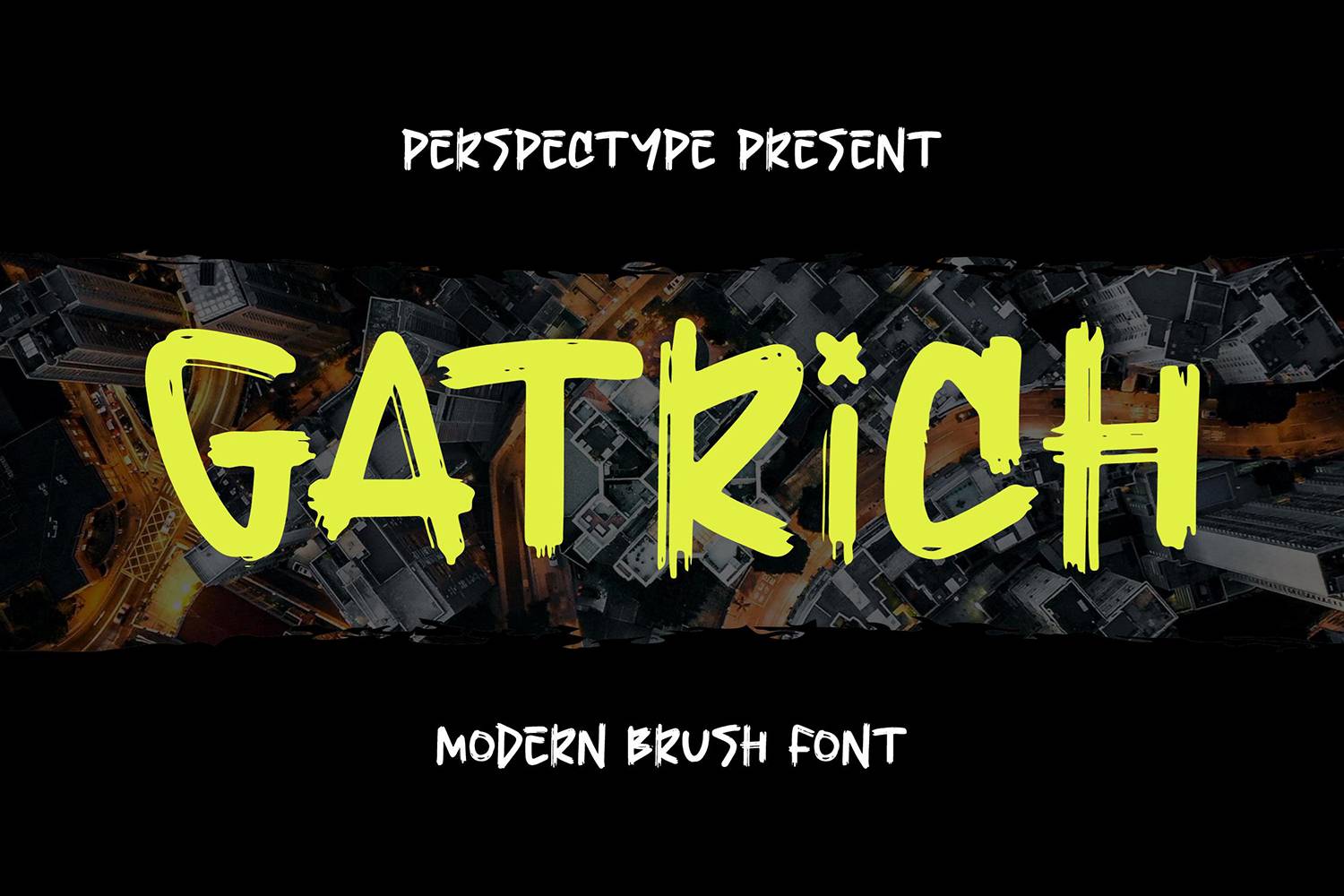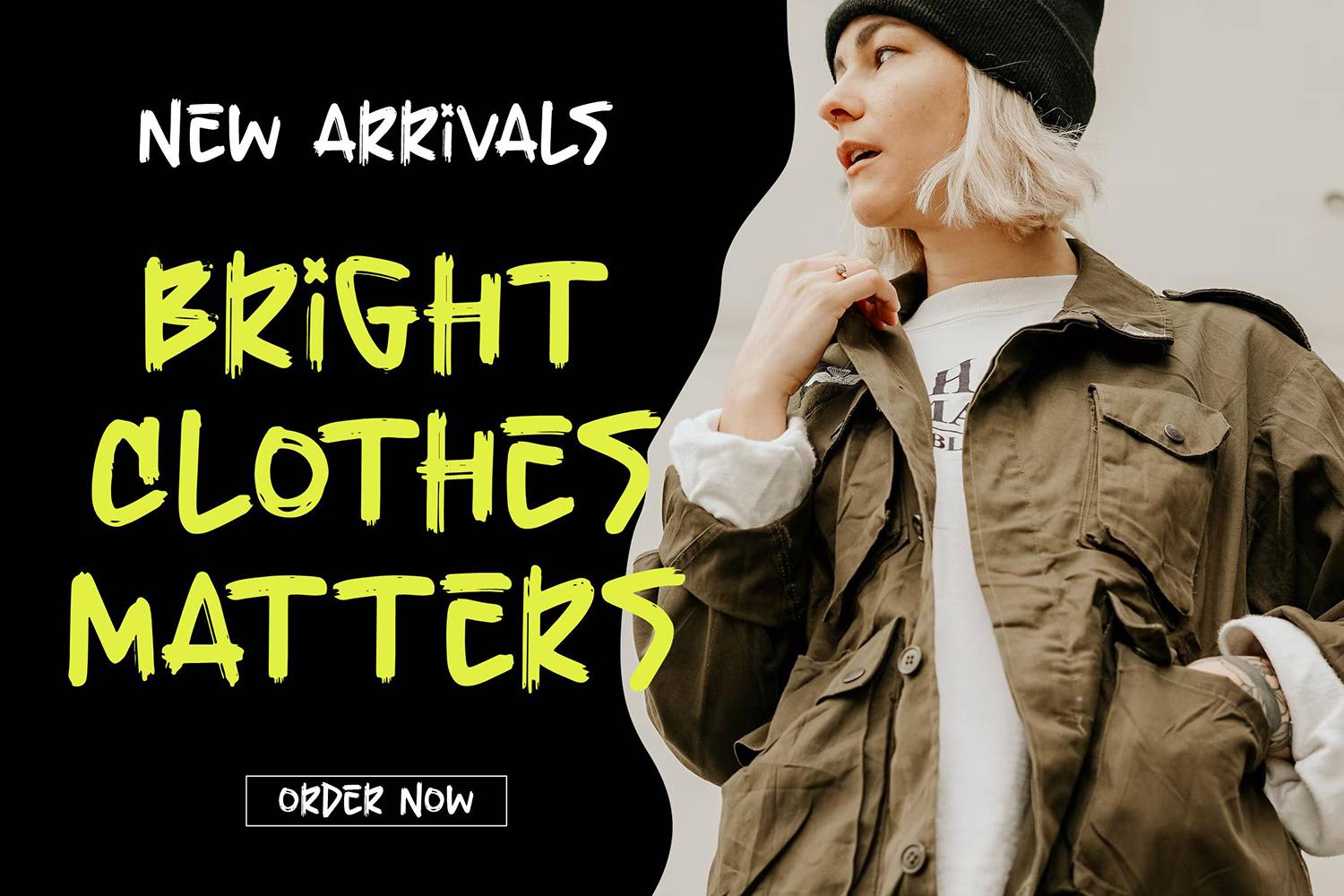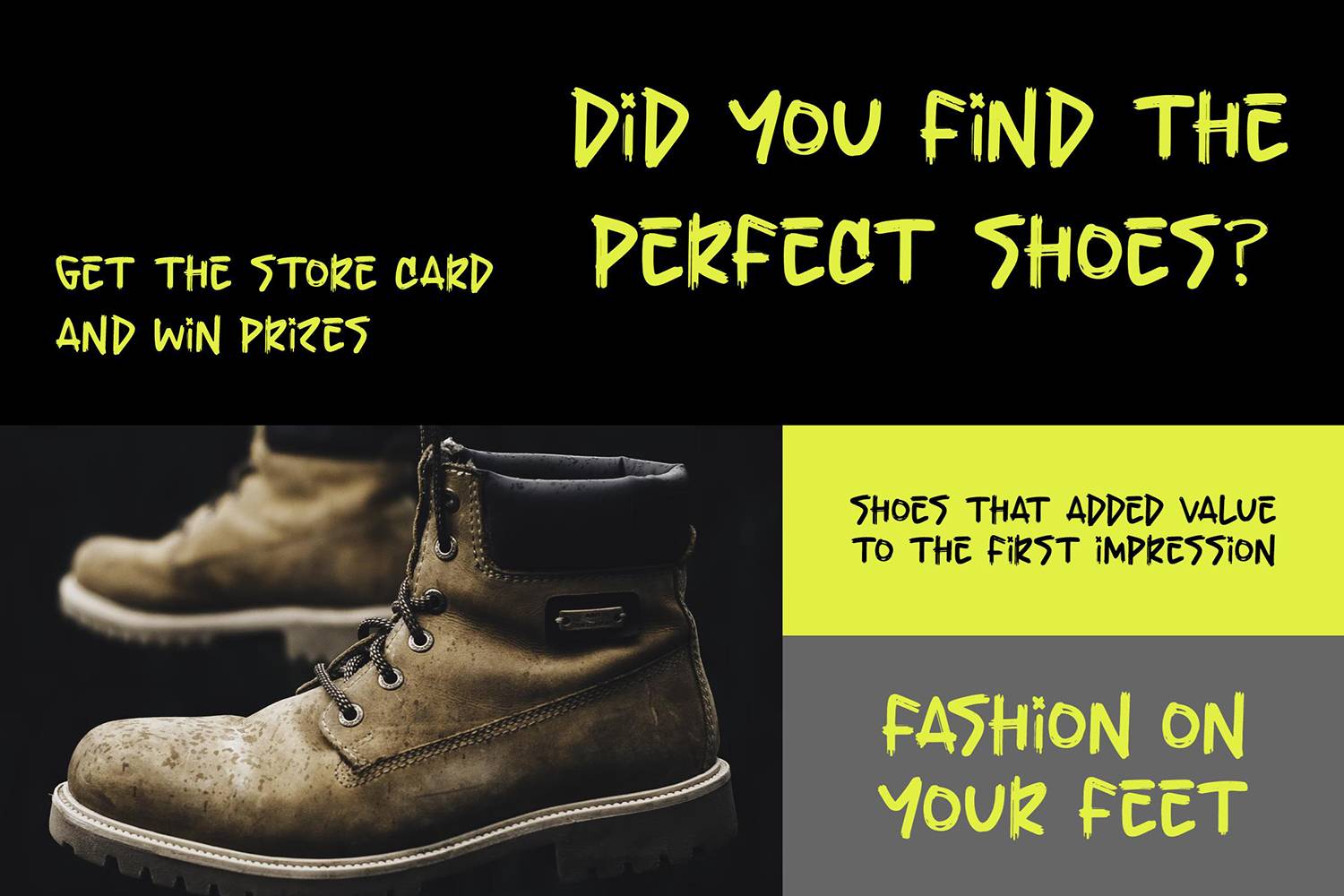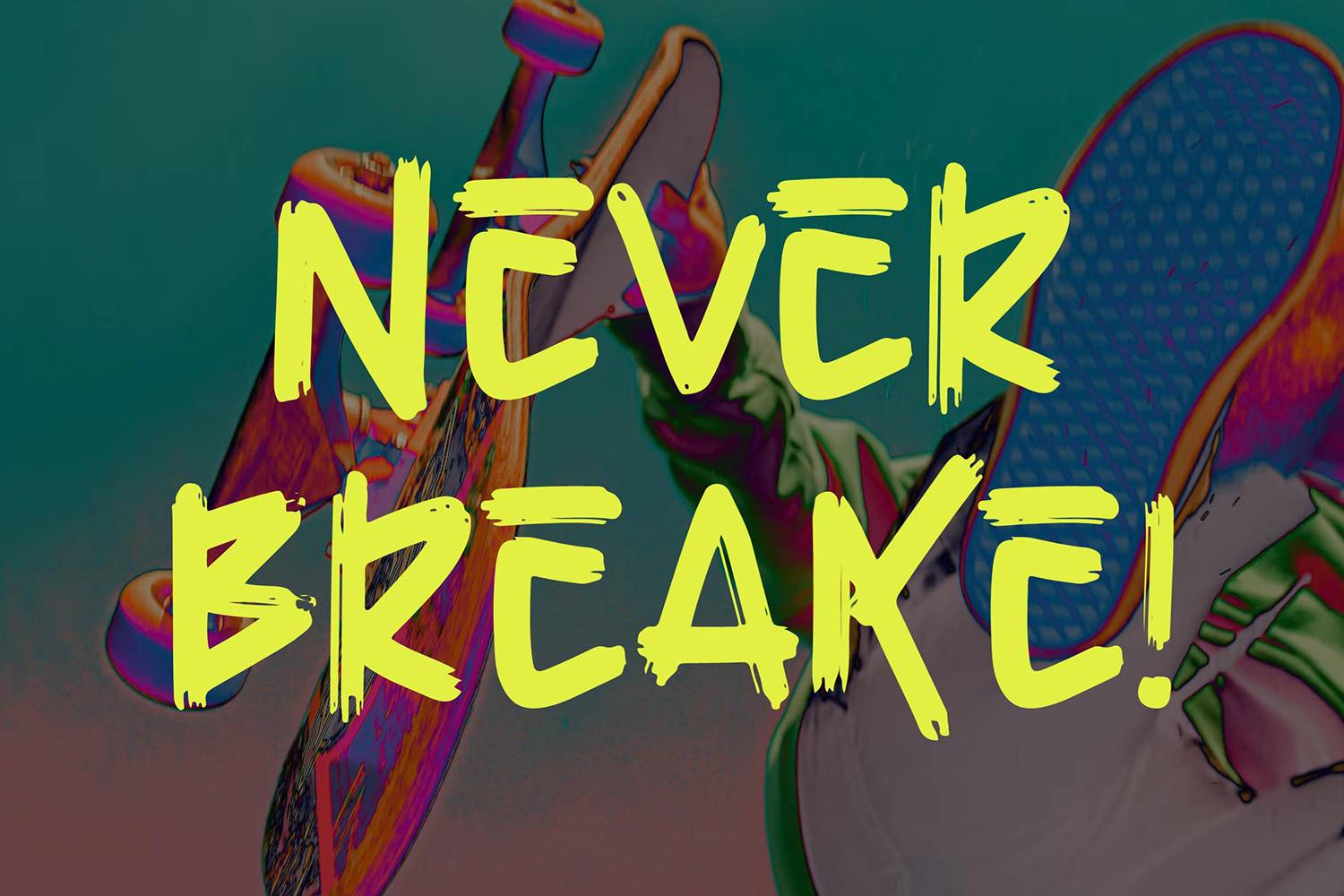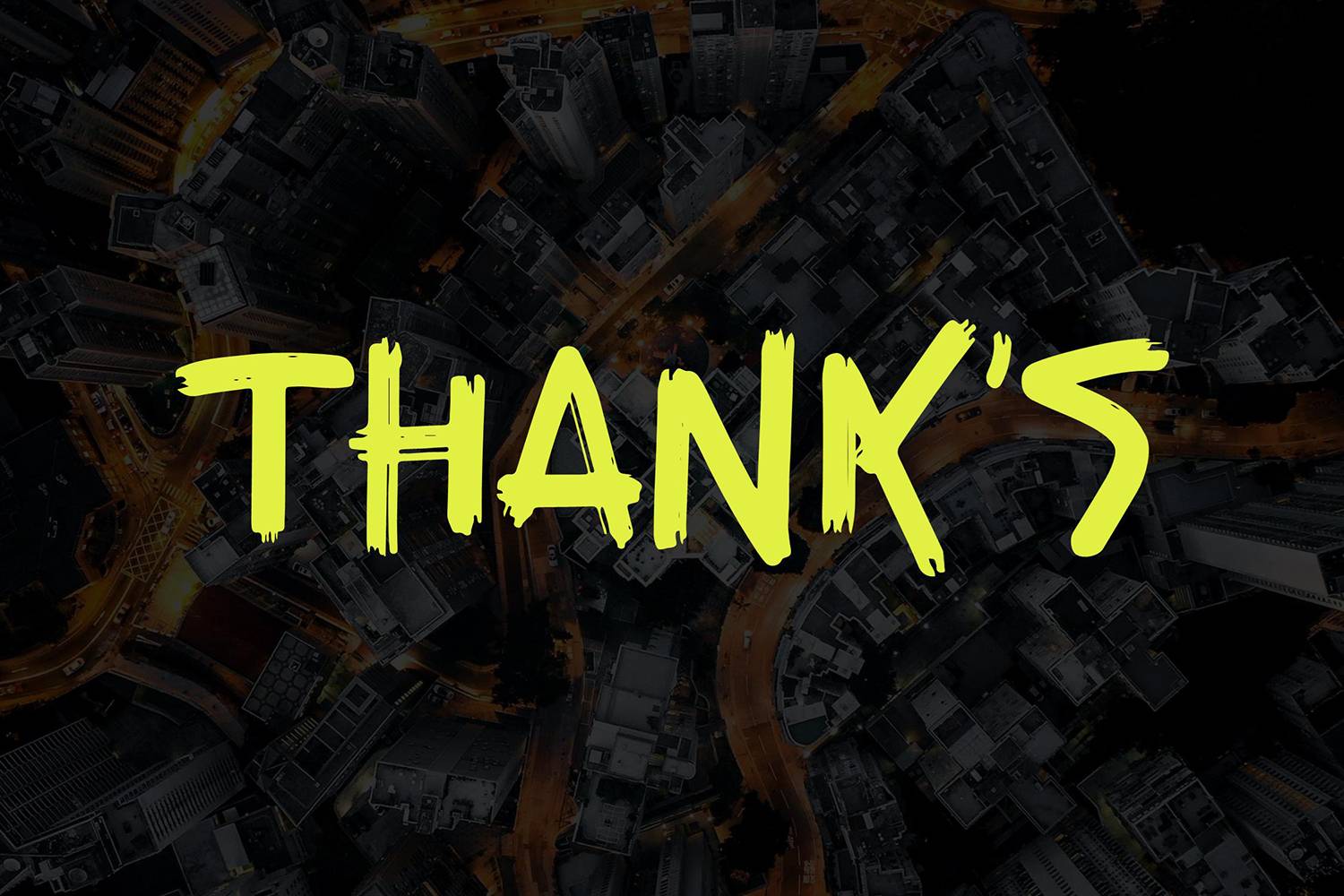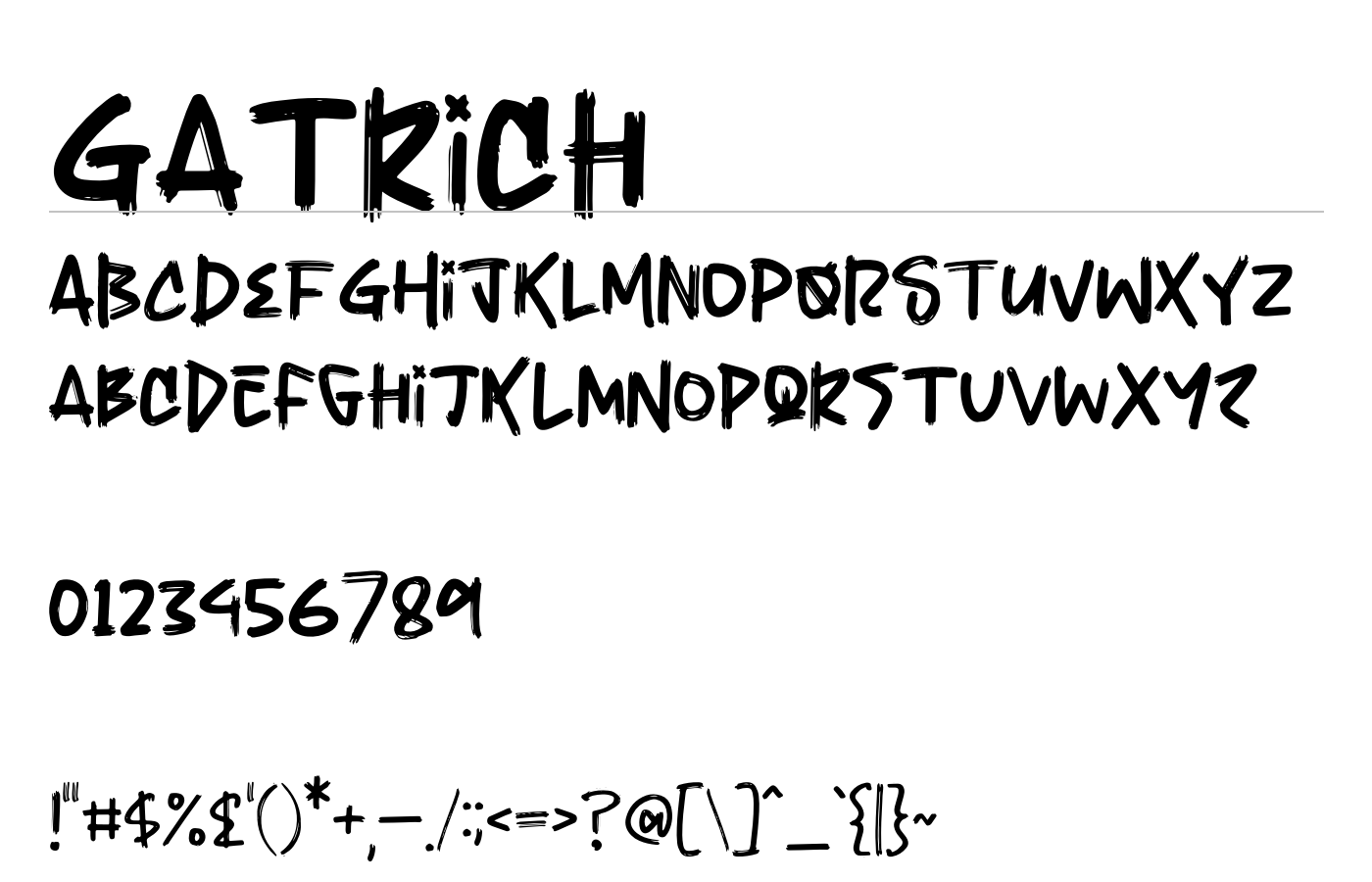
Gatrich is a bold, hand-drawn sans serif font with an energetic and playful style, featuring rough, textured strokes that give it a casual, artistic vibe. Its uneven, brush-like letterforms and slightly condensed width make it ideal for creative projects, posters, and branding that seek a unique, expressive look. This font works best where a lively, informal feel is desired, making it perfect for eye-catching headlines and dynamic designs.
Gatrich Font
About Gatrich Font